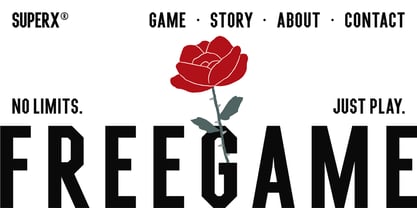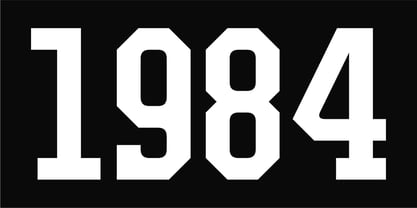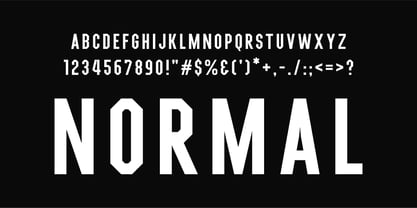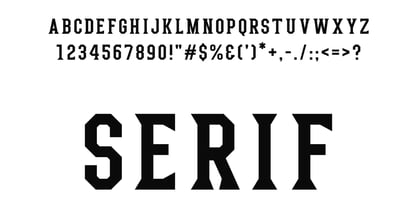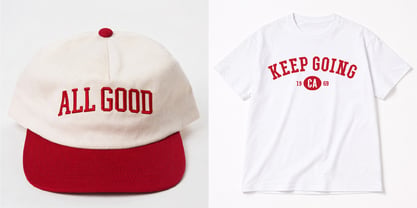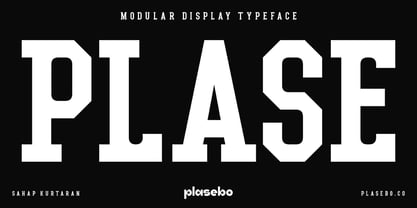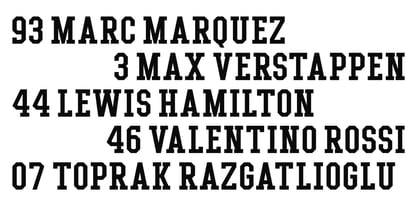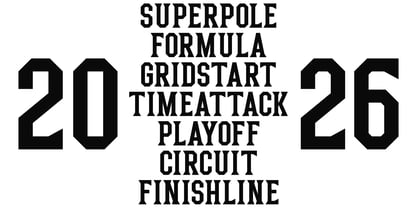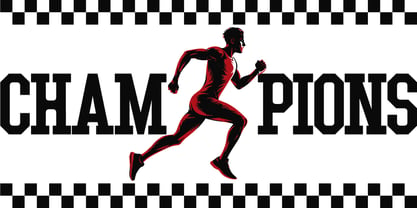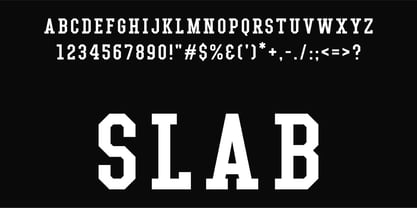
Plase
von Plasebo Studio
Die Schriftfamilie Plase wurde von Sahap Kurtaran entworfen und von Plasebo Studio veröffentlicht. Plase enthält 9 Stile und Familienpaketoptionen. Mehr über diese Familie
Plase is a bold, high-contrast display type system designed for maximum visual impact. Built around sharp geometry and assertive proportions, Plase delivers a confident voice that feels contemporary, graphic, and powerfully expressive. The family is structured around three primary style groups: Flat, Sharp, and Round. Each group is further expanded into Normal, Serif, and Slab Serif variants, resulting in a flexible and cohesive typographic system. All styles share the same underlying skeleton and rhythmic structure, allowing designers to mix normal, serif, and slab forms seamlessly without losing visual consistency. Plase is released as a single-weight display typeface, optimized for headlines, logos, posters, packaging, editorial titles, album covers, and digital campaigns. Its strong contrast and compact construction make it especially effective at large sizes, where clarity and personality are essential. The Normal styles emphasize clean geometry and bold forms, making them well suited for modern identities and technology-driven visuals. The Serif styles introduce sharp, expressive serifs that add character and attitude, while the Slab Serif styles feature architectural slab terminals that create a more solid, industrial tone. Together, these variations allow Plase to shift mood while maintaining a unified typographic voice. Plase pairs well with neutral grotesks, humanist sans serifs, and restrained text families, allowing it to take center stage as a display typeface while supporting typography handles longer reading tasks. Designed as a visual statement rather than a subtle companion, Plase is a type system for designers who value clarity, structure, and strong personality in contemporary graphic work.